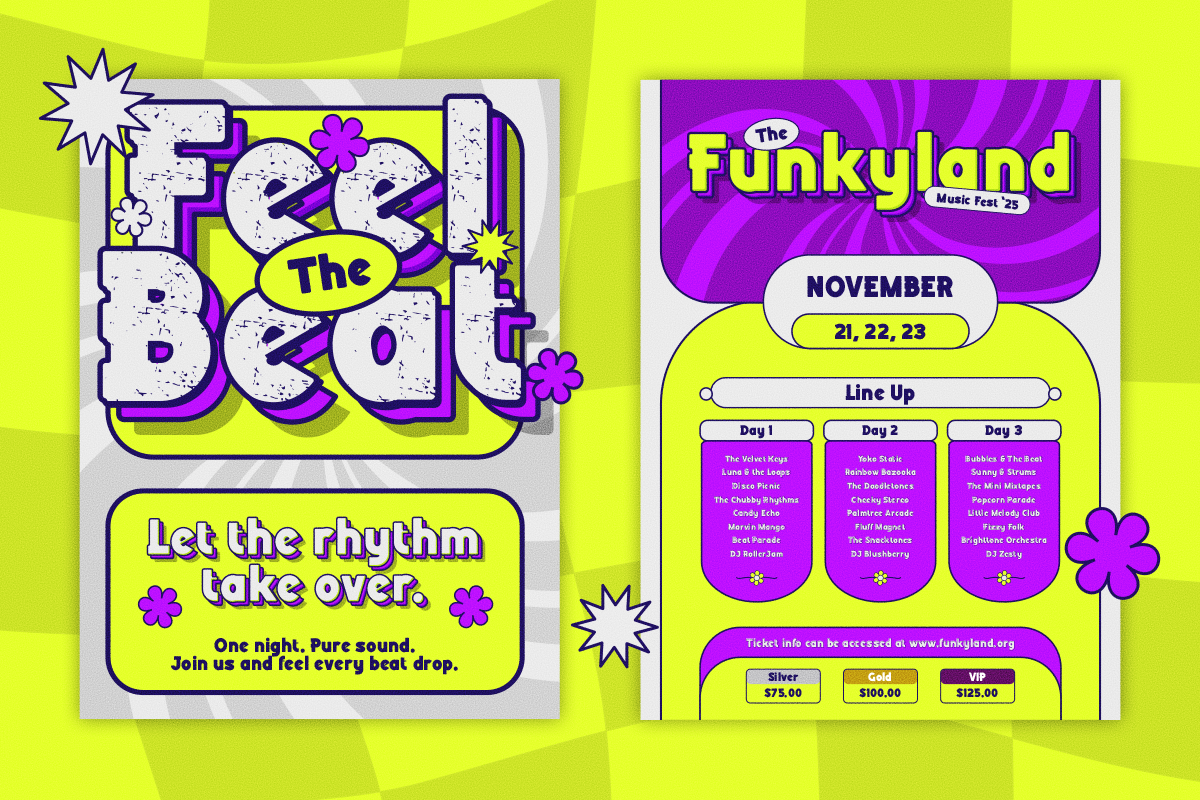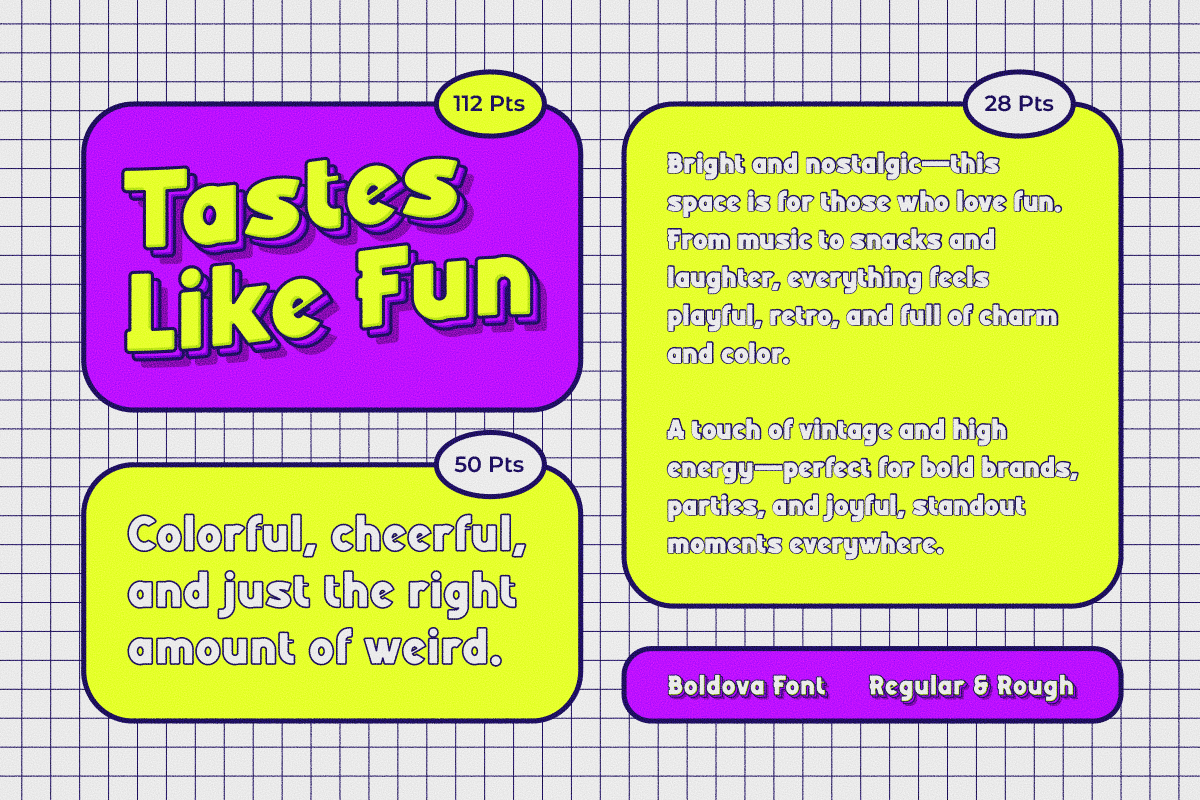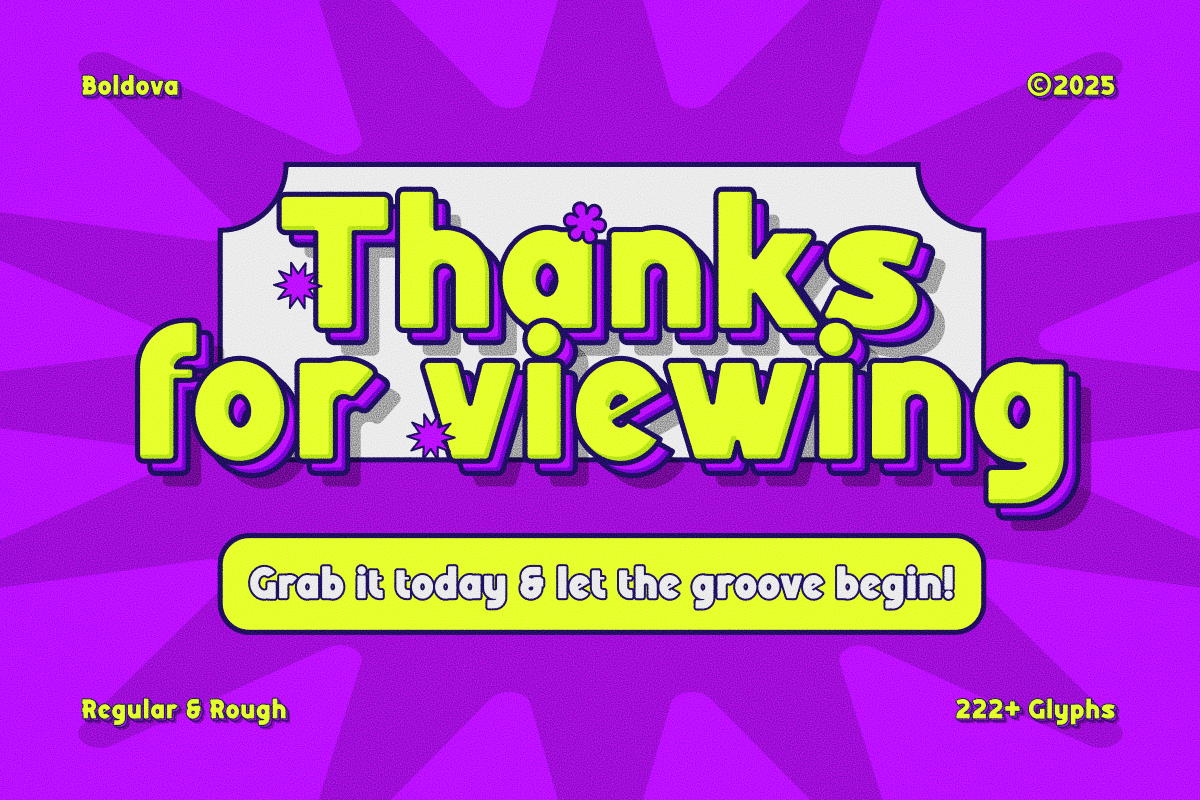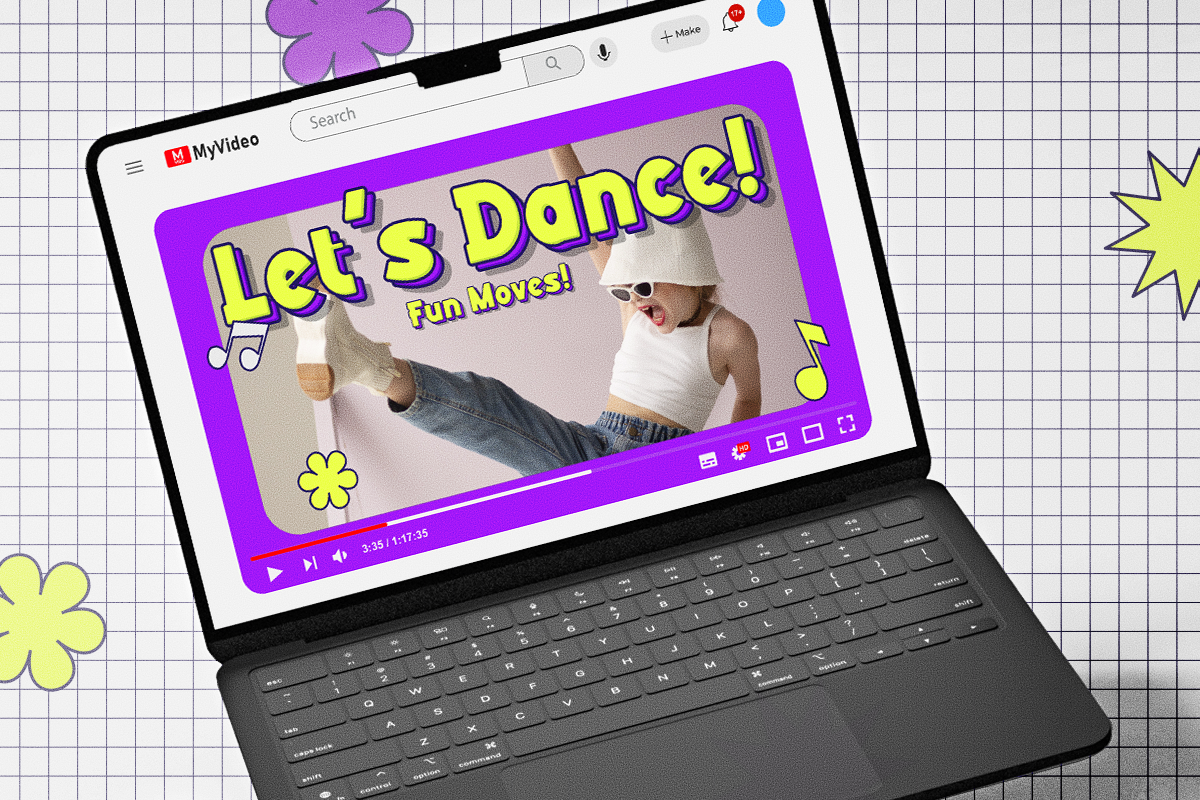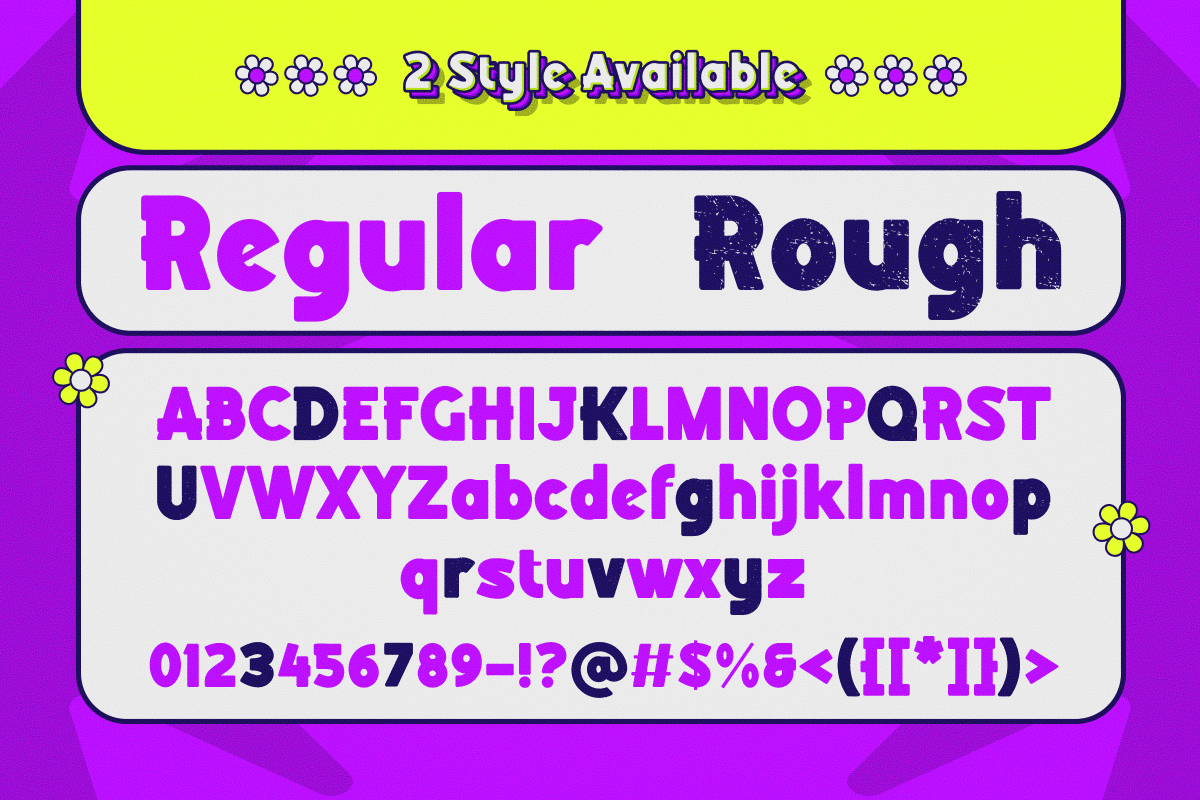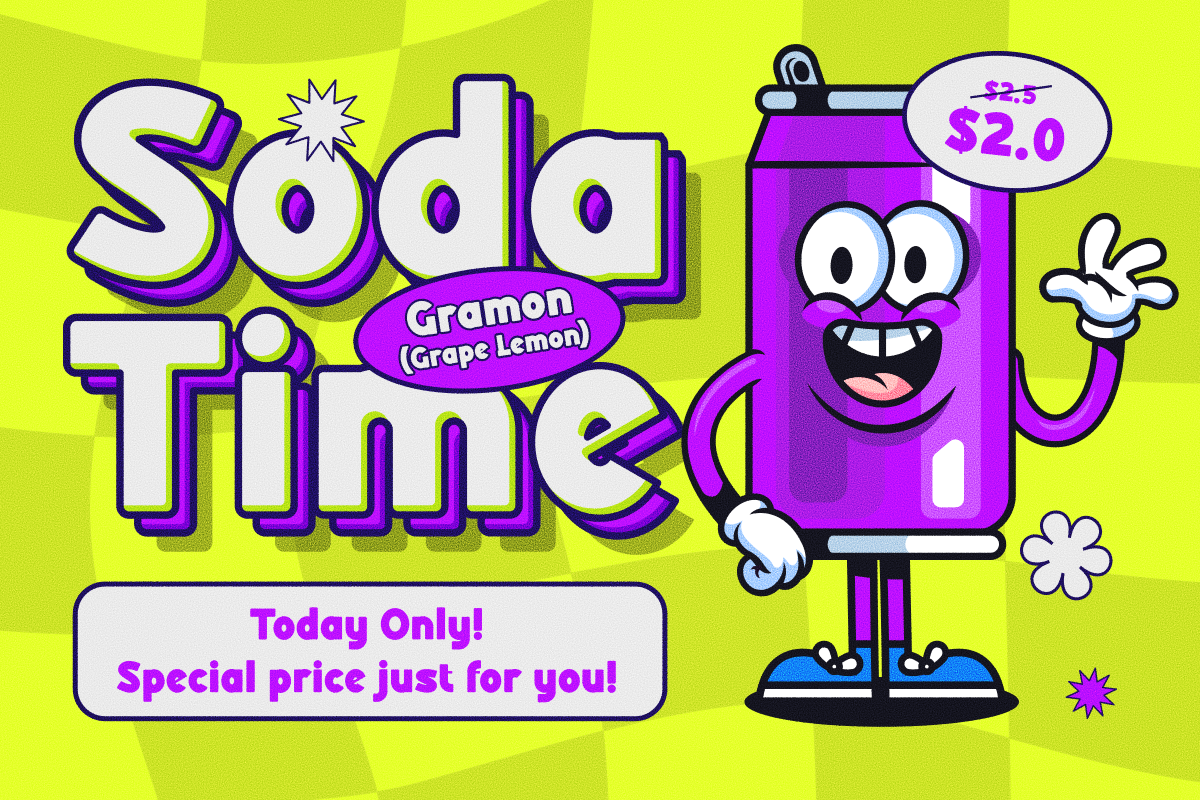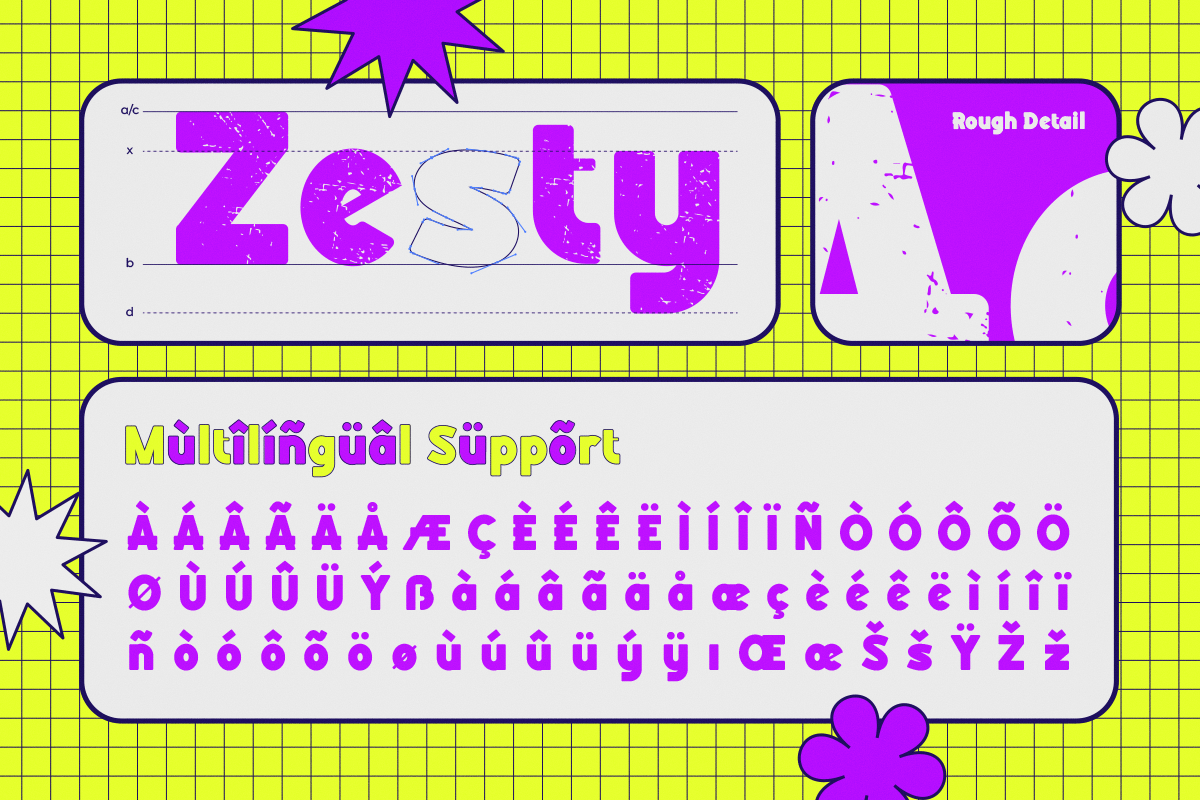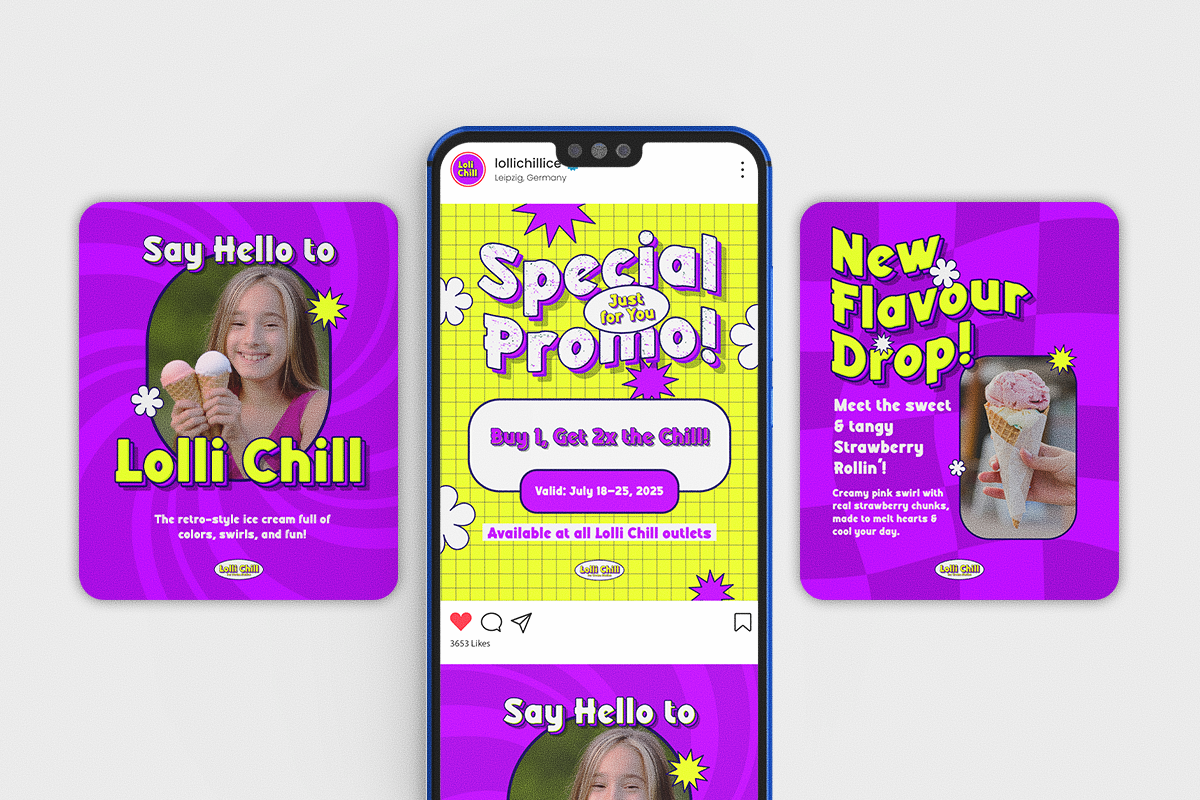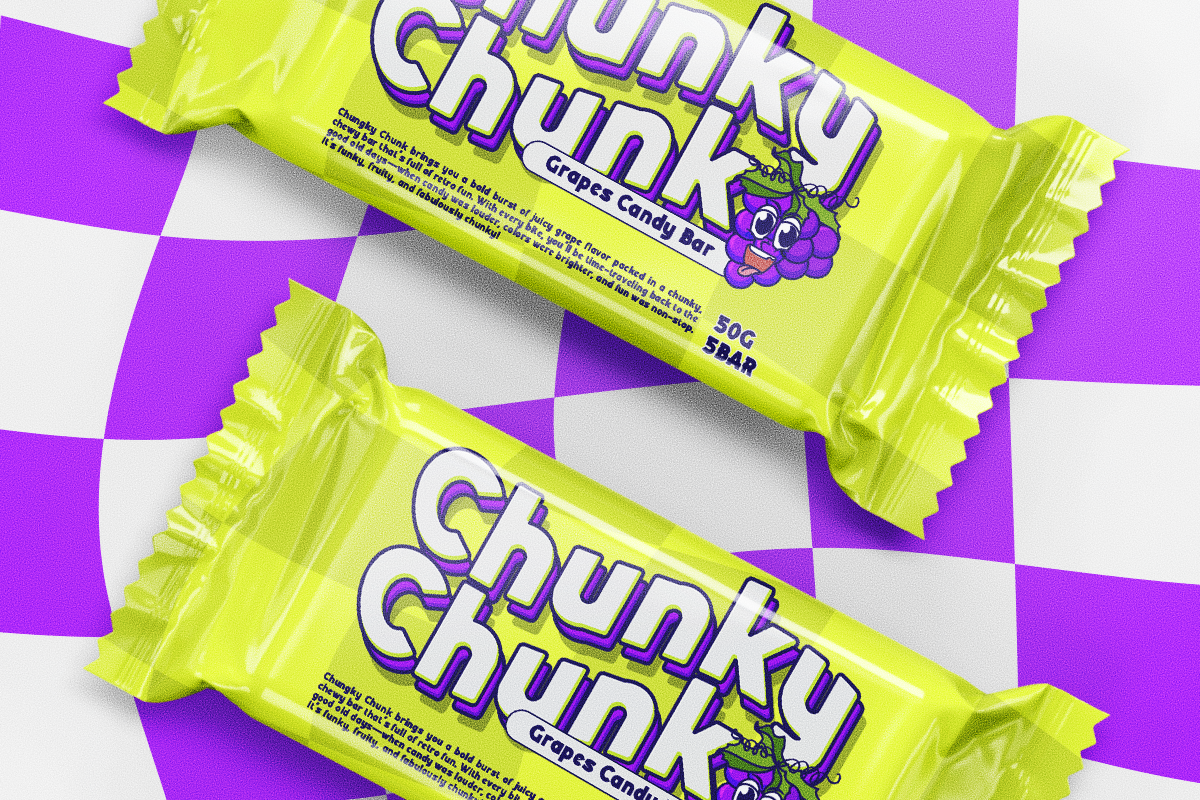
Boldova - Bold Funky Retro
Boldova is a bold funky retro display font packed with vibrant personality and nostalgic charm. Inspired by vintage cartoons, groovy pop culture, and classic 70s–90s advertising, Boldova combines chunky letterforms, playful curves, and eye-catching details to create typography that instantly stands out.
Available in Regular and Rough styles, Boldova gives you the flexibility to create clean modern designs or authentic vintage-inspired visuals. The thick, rounded shapes paired with expressive character make it perfect for logos, packaging, posters, social media graphics, merchandise, and branding projects that need a cheerful, energetic, and memorable look.
Whether you're designing for food brands, beverage packaging, toy products, music events, or lifestyle campaigns, Boldova delivers bold headlines with a fun retro attitude that brings every design to life.